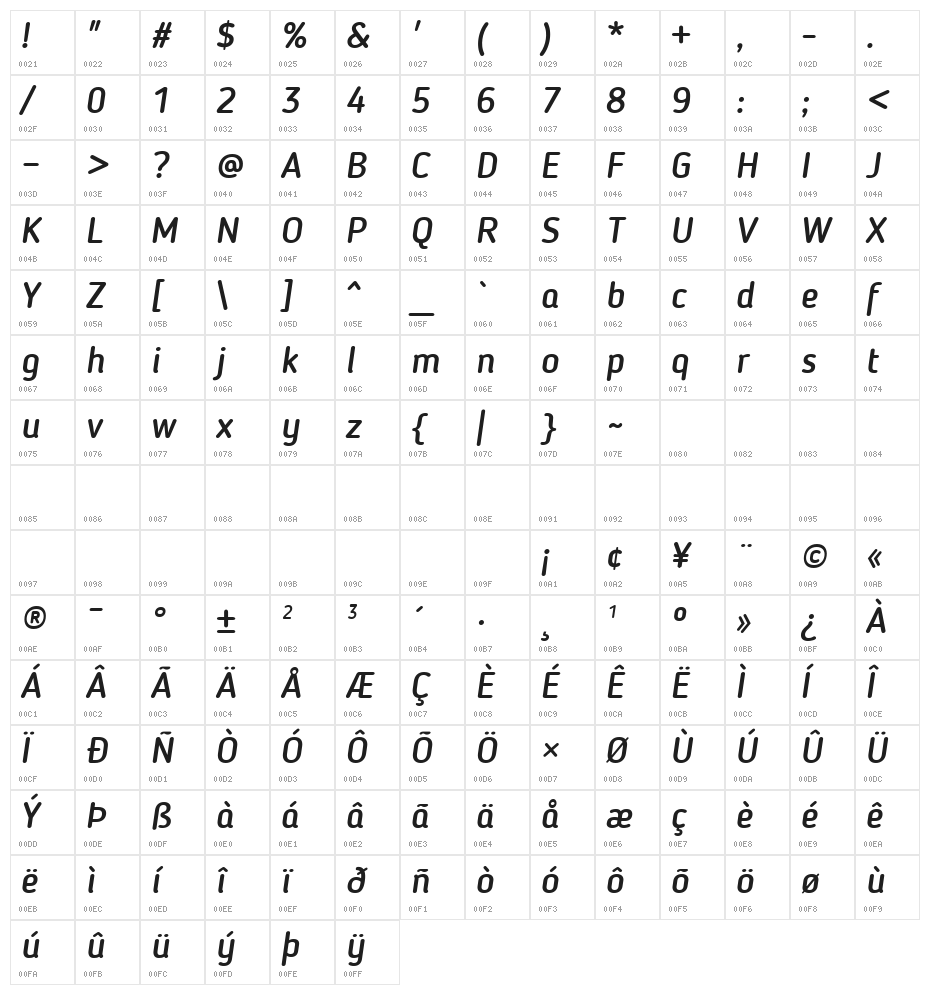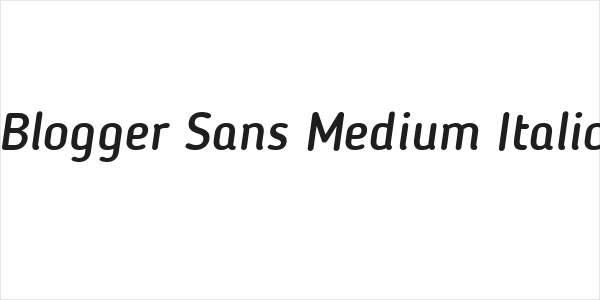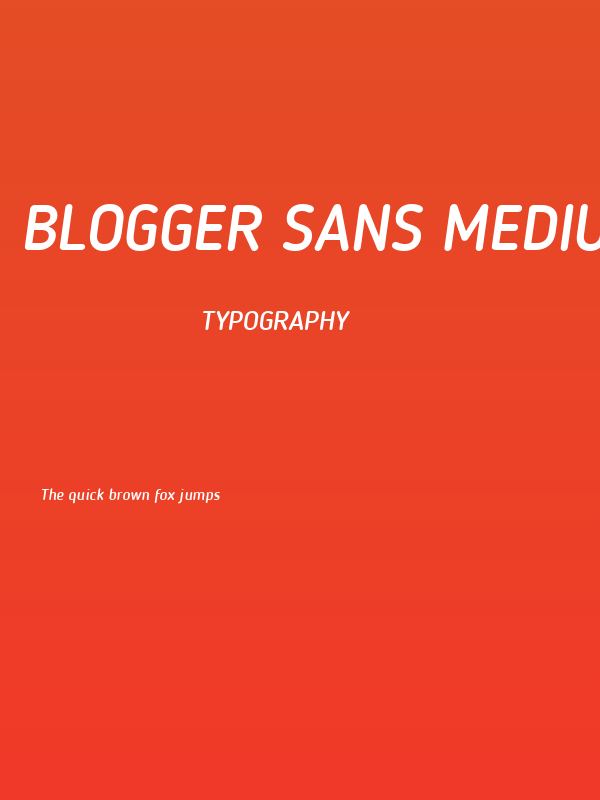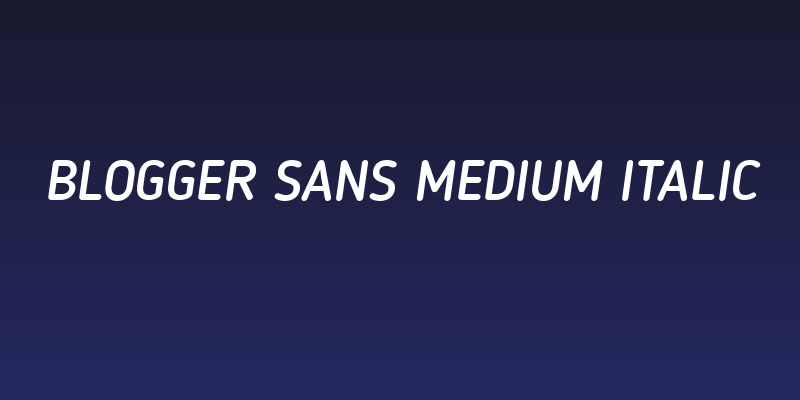
Blogger Sans Medium Italic Font
Blogger Sans Medium Italic Description
This font features a clean and modern sans-serif style with a slight italic slant, giving it a dynamic and contemporary appearance. The characters are well-proportioned with a medium weight, providing a balanced and readable text. The rounded edges and smooth curves contribute to its friendly and approachable look, making it suitable for various design applications. The numerals and special characters maintain the same stylistic consistency, ensuring a cohesive appearance across different uses. Its versatility makes it ideal for both digital and print media.
| Proposed Projects | Ideal for branding, web design, advertising, and editorial projects. |